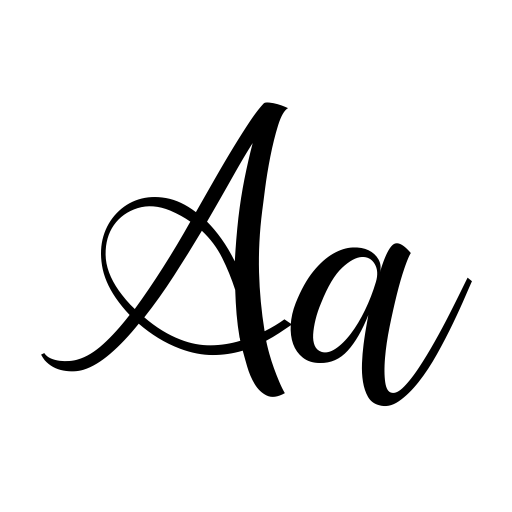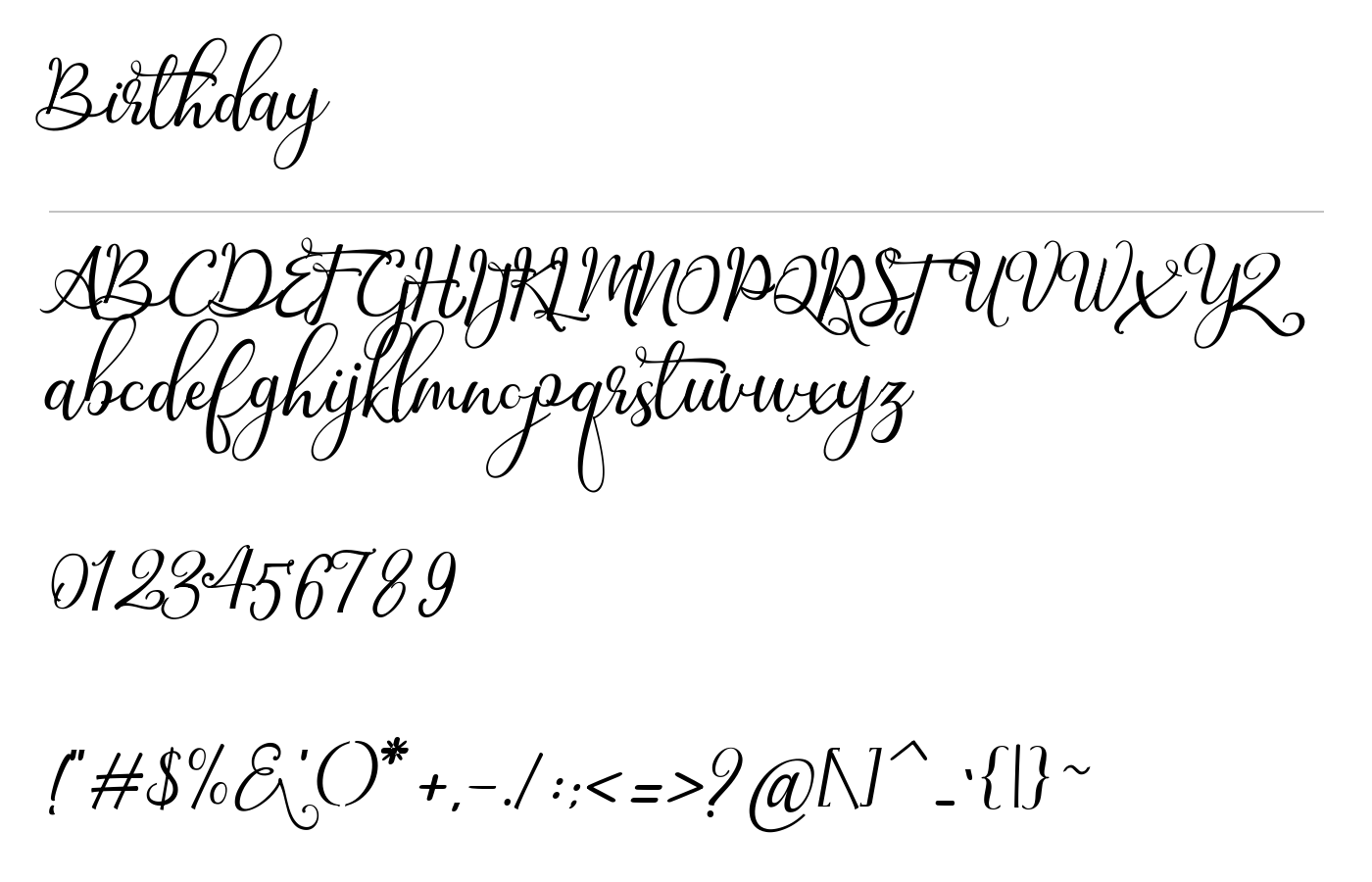
Birthday Font is an elegant, handwritten script featuring sweeping, delicate strokes with high contrast between thick and thin lines. Its graceful letterforms and decorative swirls make it perfect for celebratory designs, invitations, and branding that aim to convey sophistication and charm. This font shines in headlines, logos, and feminine or festive contexts where a stylish, personal touch is desired.
Birthday Font
About Birthday Font
| Font family | Birthday Font |
| Designer | Arief.hk |